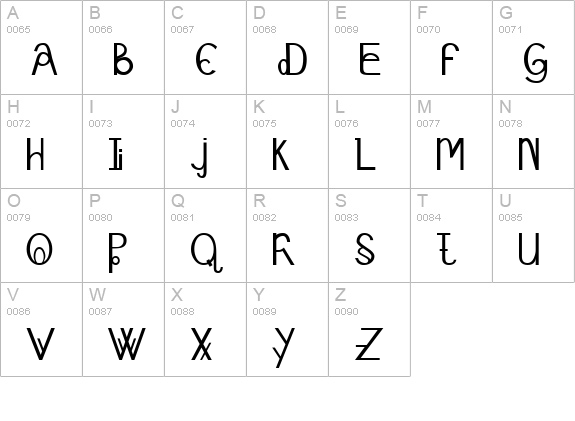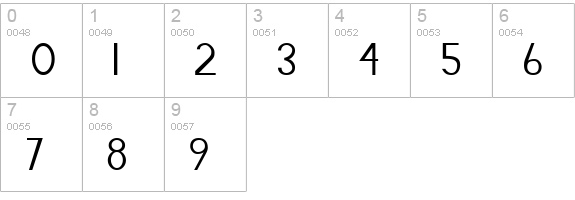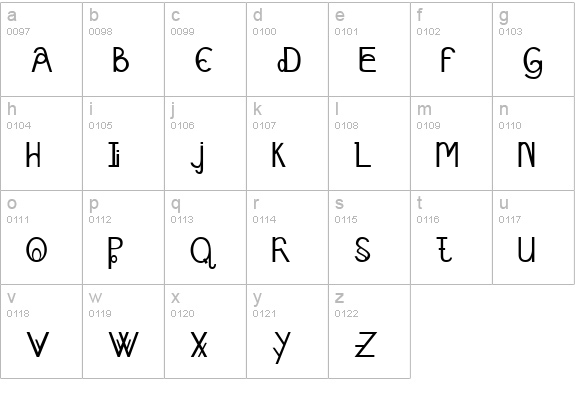
Schizcase Font Details
Introducing Schizcase, a bold and captivating font that effortlessly stands out in any design project. With its unique combination of clean lines and edgy curves, this font exudes a sense of modernity and sophistication. The Schizcase font is designed to make a statement, whether it's used in a logo, headline, or body text. Its distinct characters effortlessly capture attention and leave a lasting impression. Each letter is carefully crafted to showcase a perfect balance between elegance and boldness, making it suitable for a wide range of applications. One of the most remarkable aspects of Schizcase is its versatility. It seamlessly adapts to various design styles, from minimalistic to extravagant, ensuring that it always complements the overall aesthetic of your project. Whether you're working on a branding campaign, advertising materials, or even personal projects, this font will undoubtedly elevate your designs to new heights. But what makes Schizcase even more appealing is that it is freely available to download at FontsMarket.com. That's right, this remarkable font can be yours without any cost. Now, you can access this incredible typeface and unleash your creativity without any limitations or financial constraints. Designed to be user-friendly, Schizcase is compatible with both Mac and Windows operating systems, ensuring that it can be seamlessly integrated into your design workflow. Its extensive character set includes uppercase and lowercase letters, numbers, punctuation marks, and special characters, providing endless possibilities for your design endeavors. So, why wait? Embrace the allure of Schizcase font and take your design projects to the next level. Download it for free at FontsMarket.com and let your creativity soar. Unleash the potential of this remarkable font and watch as your designs captivate and inspire.